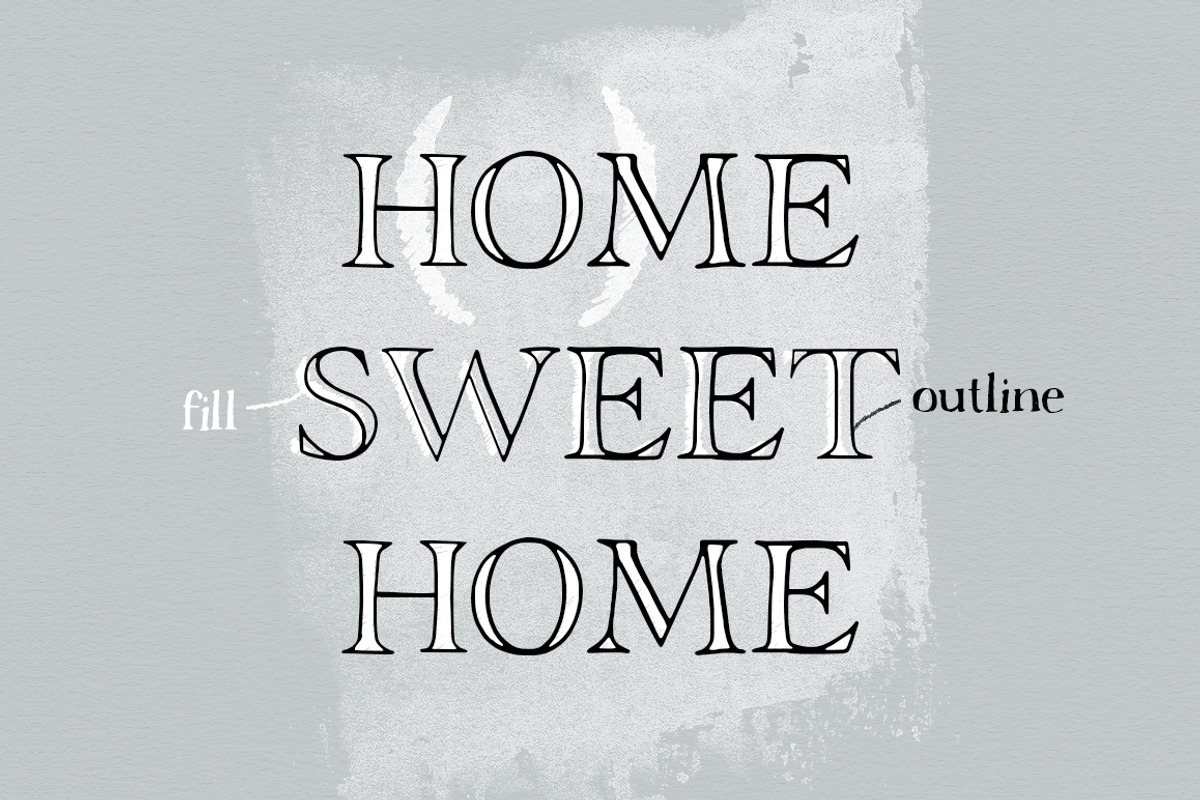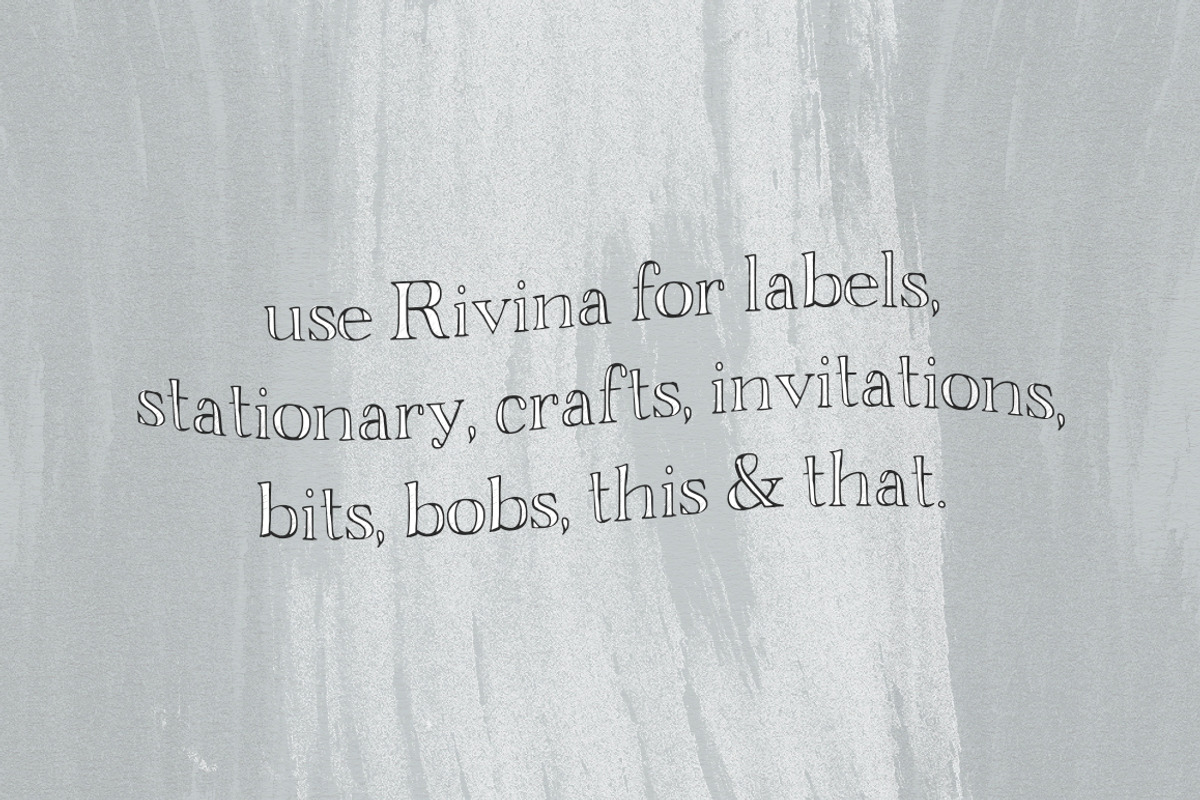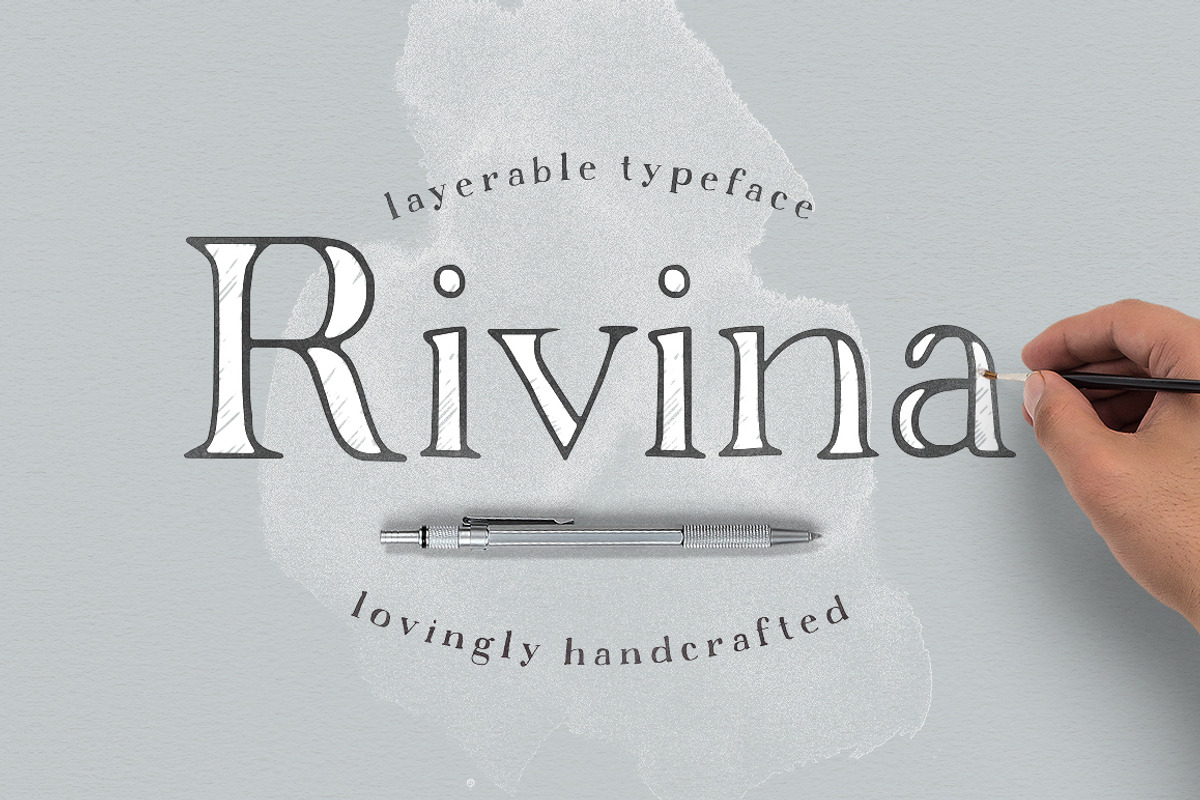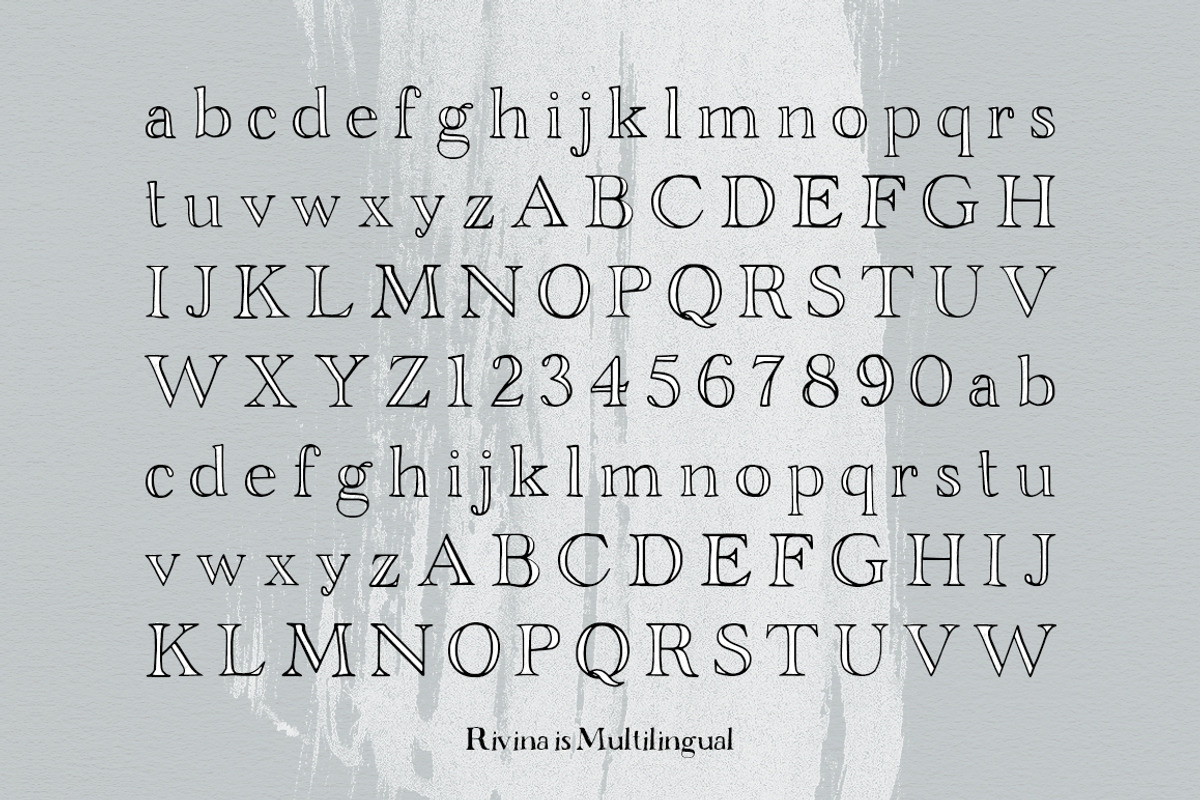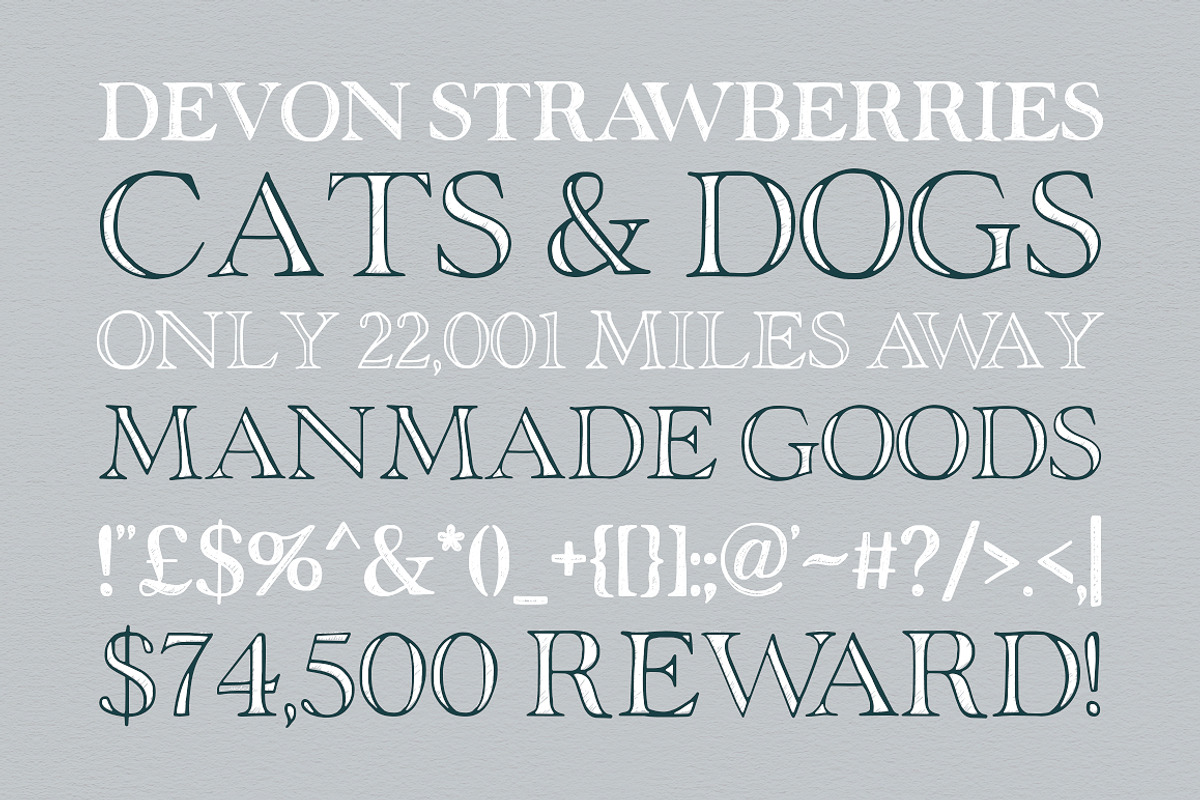
Rivina - Layered Font
Rivina - Layered Font by Tom Chalky is a font selected for branding, posters, packaging, typography.
- Rivina is multilingual and covers all latin 1 glyphs.
- Rivina TC Fill
- Rivina TC Outline
Rivina - Layered Font by Tom Chalky fits naturally into Branding, posters, packaging, typography.